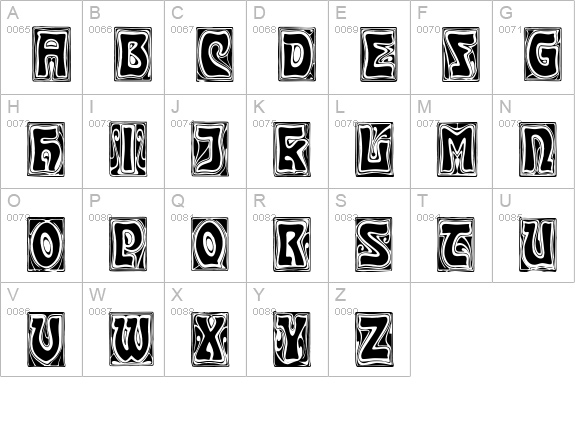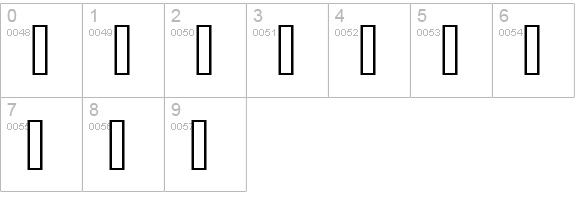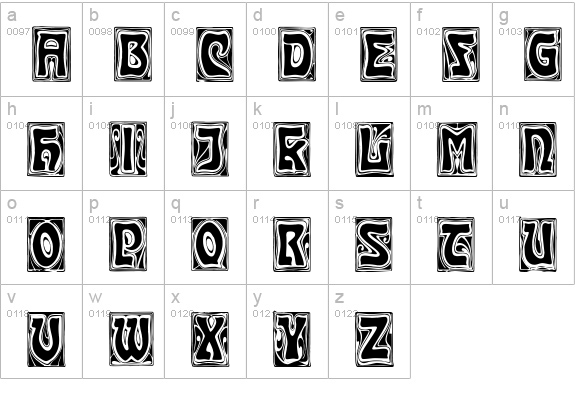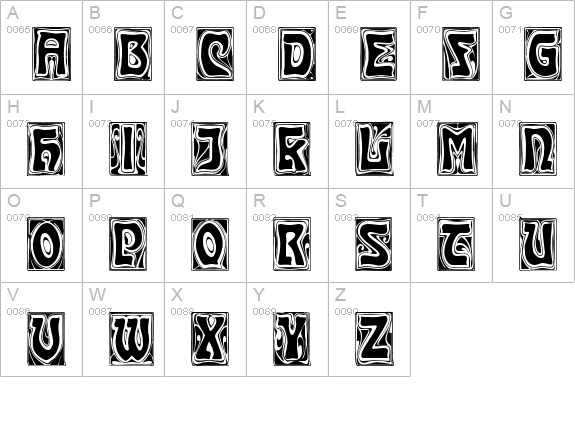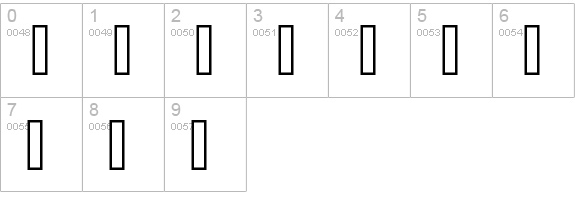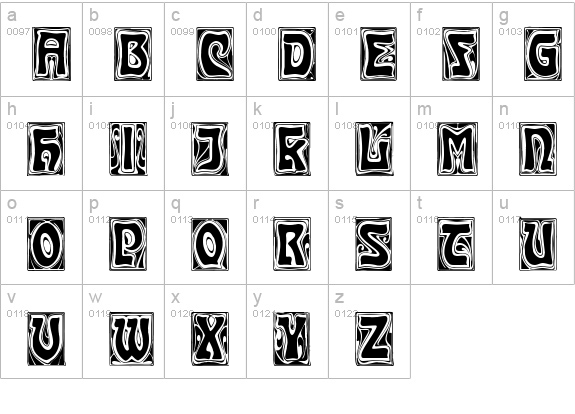
Carmen Caps font is a stylish and elegant typeface that exudes sophistication and charm. With its classic design and striking uppercase letters, Carmen Caps is perfect for adding a touch of class to any project. This versatile font is ideal for creating eye-catching headlines, logos, invitations, and more. Best of all, Carmen Caps is available for free download at FontsMarket.com. Whether you're a designer, blogger, or hobbyist, you can easily access this beautiful font and enhance your creative projects without any cost. Don't miss out on the opportunity to elevate your designs with Carmen Caps font, the perfect blend of timeless elegance and modern appeal.